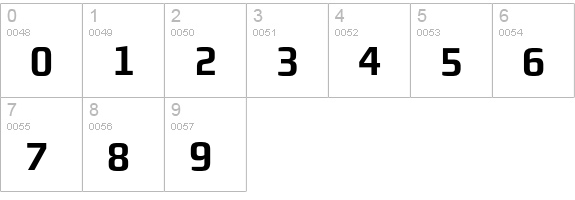
MorganSnLining Bold Font Details
MorganSnLining Bold is a strong, high-contrast variant in the MorganSnLining typeface family \xE2\x80\x94 well suited to headlines, attention-grabbing titles, and strong calls-to-action.
MorganSnLining Bold font is a striking and bold typeface designed to make a statement in your designs. With its strong and commanding presence, this font is perfect for headlines, titles, and branding projects that require a touch of boldness. The unique and stylish letterforms of MorganSnLining Bold will definitely help your text stand out from the crowd. What's even better is that MorganSnLining Bold font is available for free download at FontsMarket.com. This means that you can easily add this powerful font to your collection without any cost. So why wait? Download MorganSnLining Bold today and elevate your designs with its bold and impactful style.